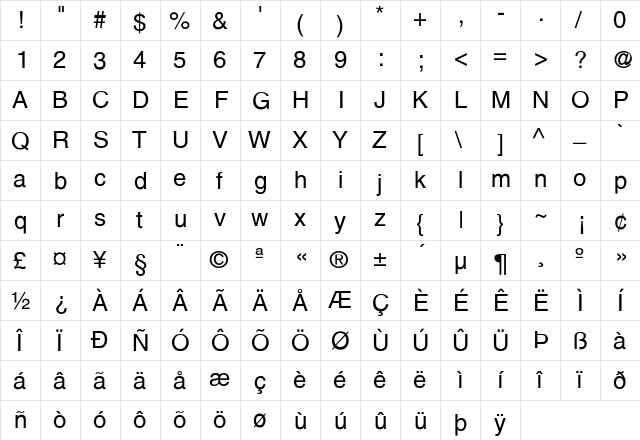
Halvorson Regular
Design Context for Halvorson Typeface
Halvorson takes a measured approach to typography — its balanced proportions and neutral character make it a reliable workhorse for both digital and print work.